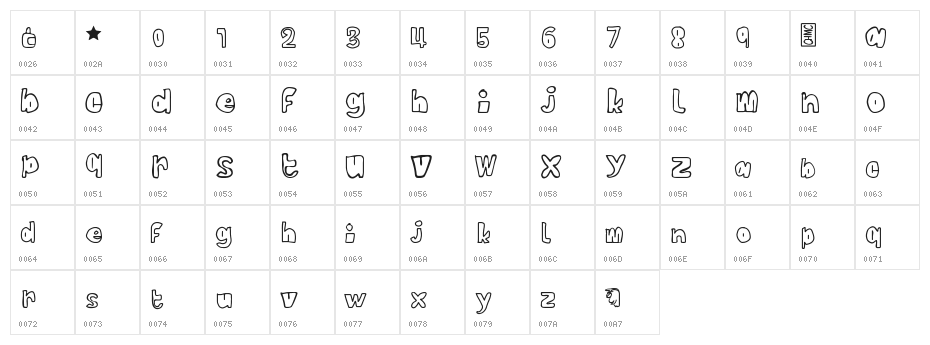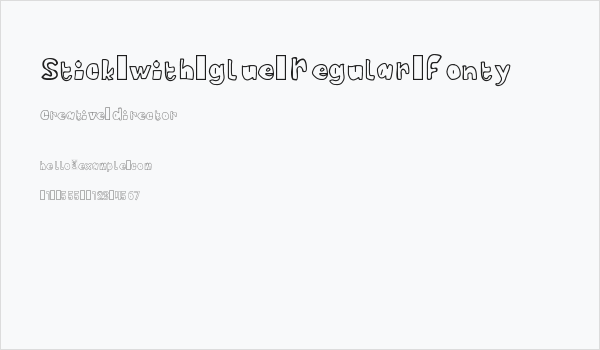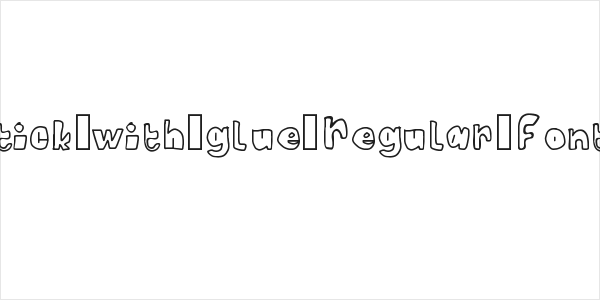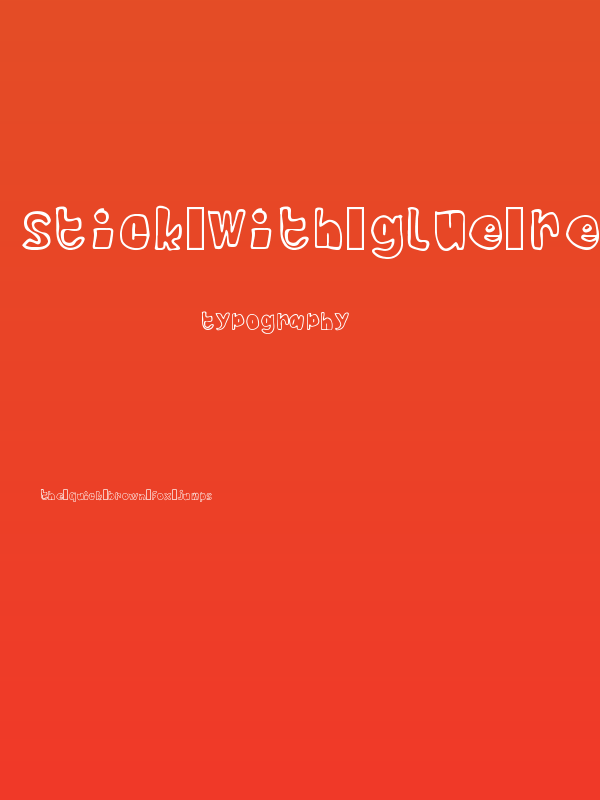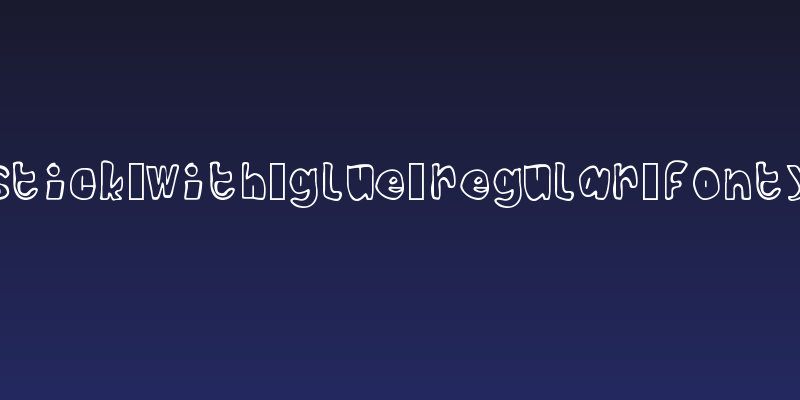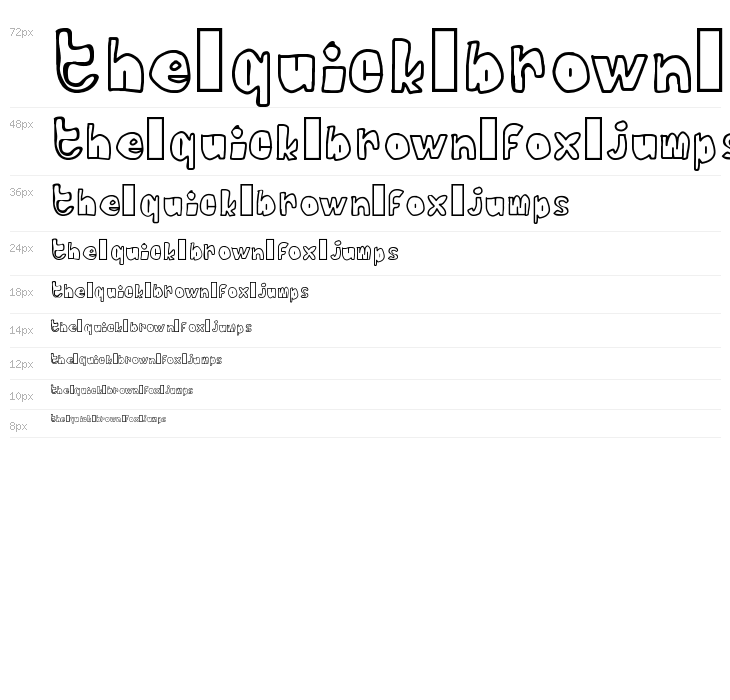
Stick with glue Regular Fonty Font
Stick with glue Regular Fonty Description
This playful and whimsical font features a bold, hand-drawn style with a slightly irregular outline that gives it a fun, informal appearance. The characters are rounded and have a cartoonish quality, making them stand out with a unique charm. The font includes both uppercase and lowercase letters, numerals, and a few special symbols, all maintaining the same quirky aesthetic. The strokes are consistent in thickness, providing a uniform look across all characters. This font is perfect for projects that require a touch of creativity and lightheartedness.
| Proposed Projects | Ideal for children's books, playful branding, greeting cards, and creative posters. |